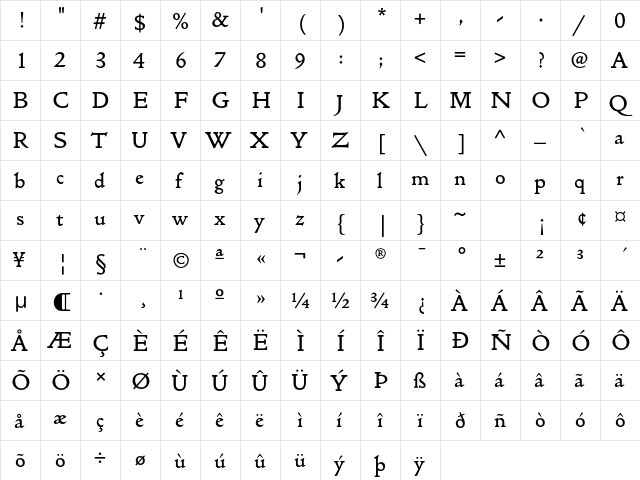
Golden Type ITC Std Regular
| Designer | Sigrid Engelmann, Helga Jorgensen and Andrew Newton. |
Design Context for Golden Type ITC Std Typeface
Golden Type ITC Std offers clean, dependable letterforms without strong stylistic allegiance, making it a practical choice for designers who need flexibility.